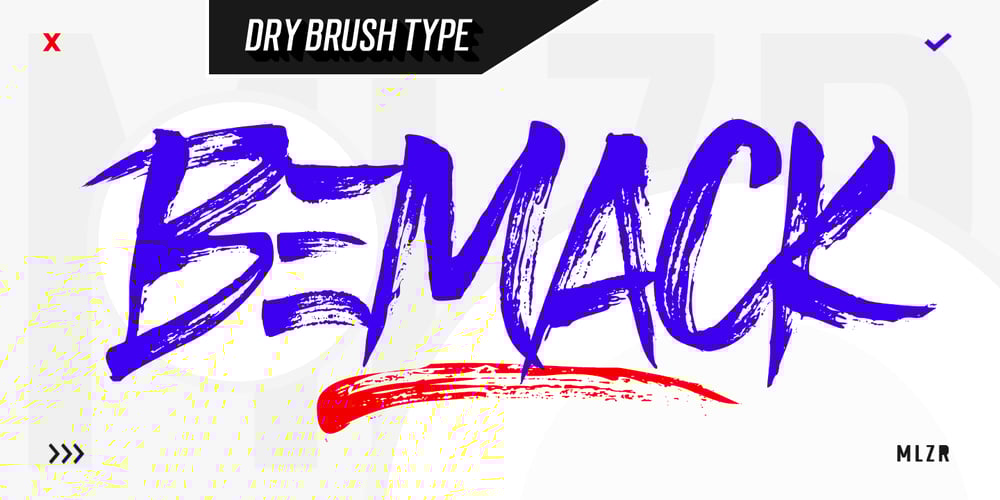
Bemack
Bemack font
Bemack Font Family was designed by Mauli Zari and published by Dhan Studio. Bemack contains 2 styles and family package options. BEMACK is handwritten made with a brush pen, this font will tear through your text with unmistakable energy, dynamic and spontaneous flow. To help you create stunning custom handwriting displays. BEMACK comes with alternates character, ligature, punctuation, numerals. Also included is a bonus extras swashes, handmade designed to perfectly for headlines and short texts. Use it for magazines, t-shirt, packaging, logos, advertising, quotes, branding, posters, editorials, cover artwork, movies, websites, etc BEMACK is coded with Unicode PUA, Allows full access to all the extra characters without having special software designing. Mac users can use Font Book, and Windows users can use Character Map to view and copy any of the extra characters to paste into your favorite text editor / app. Thanks so much for looking and Enjoy it!